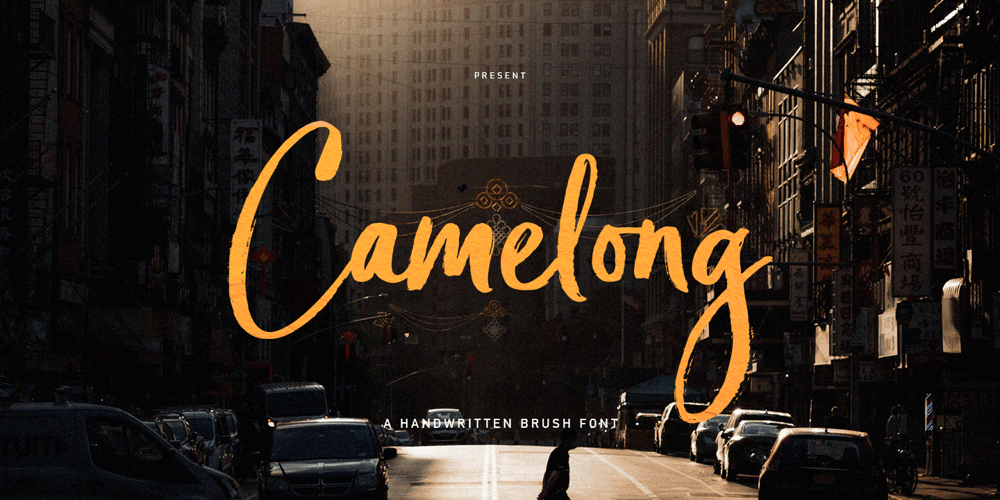
Camelong Brush Font Family was designed by Alam Syahril and published by Realtype. Camelong Brush contains 1 styles and family package options. Camelong Brush is a handwritten font to get the best texture for each letter. Camelong Brush is designed to perfection, each letter character will make your design strong and charming. Each letter and symbol is painted using the finest brushes and ink. Camelong Brush contains upper and lower case characters, numbers and various punctuation marks that are ready for you to use with unique and charming characters.Camelong Brush Font is suitable for any modern design such as for advertising banners, modern cards, invitations, announcements, seasonal designs, social media promotions, web design, branding and logo styling and more.